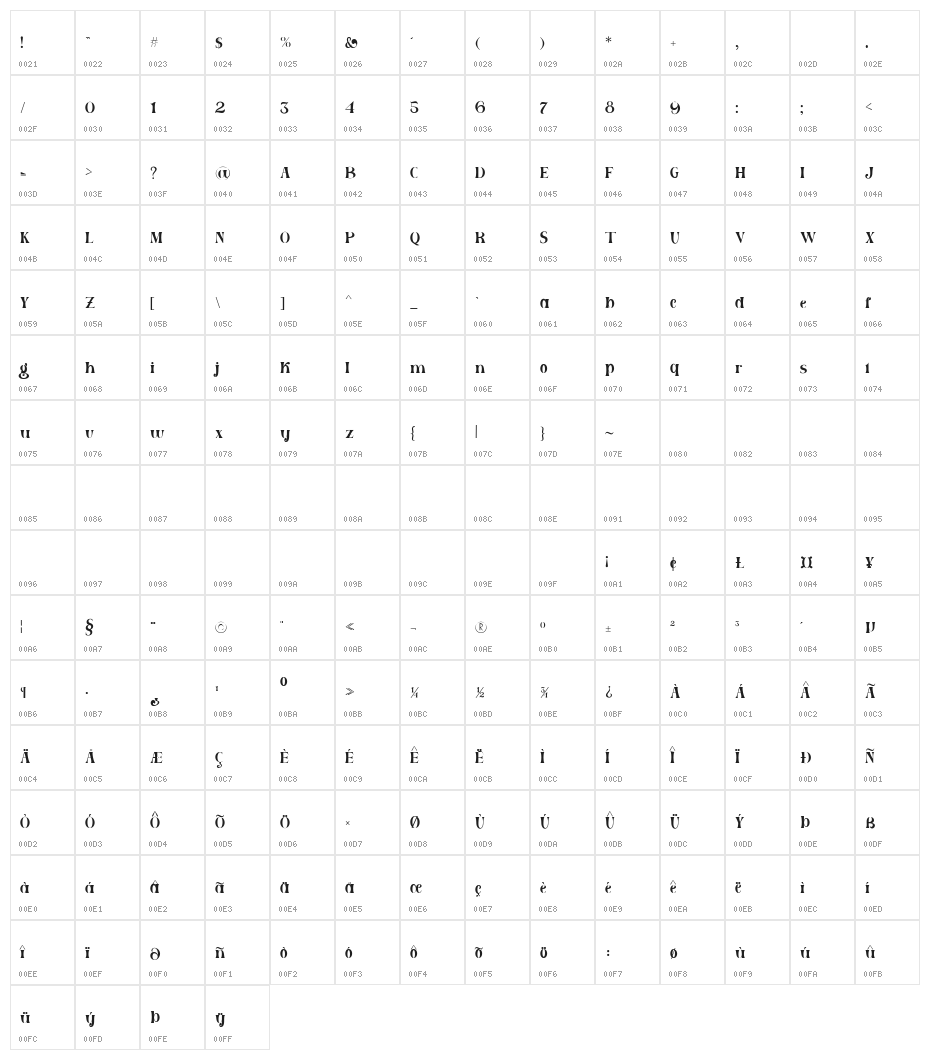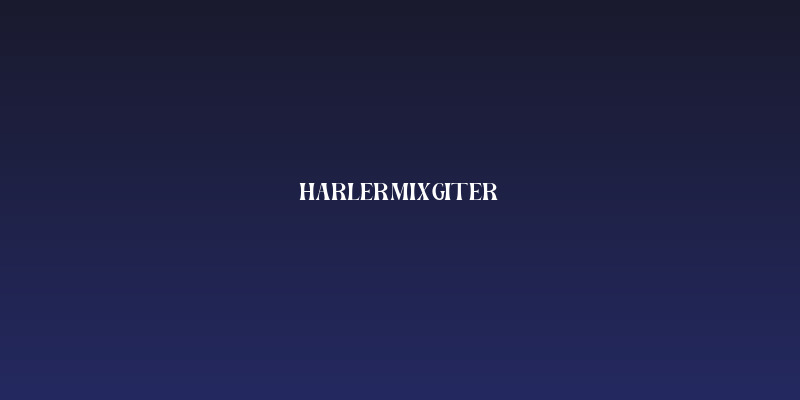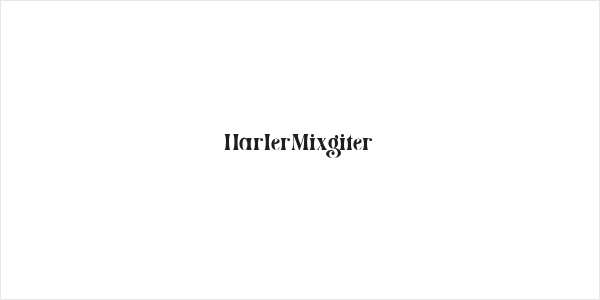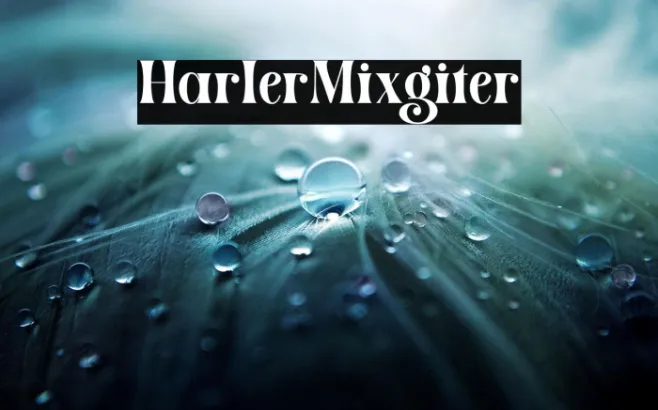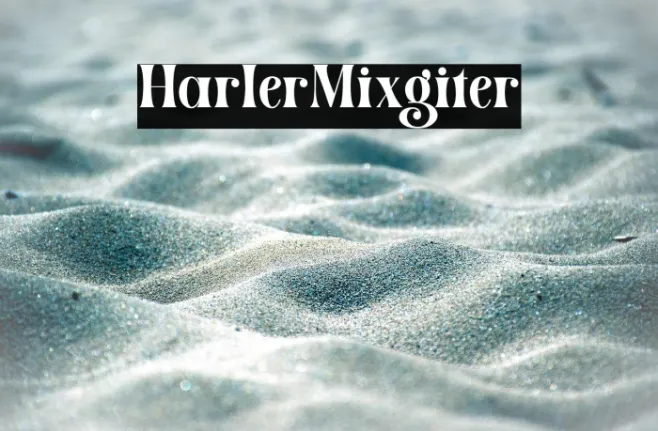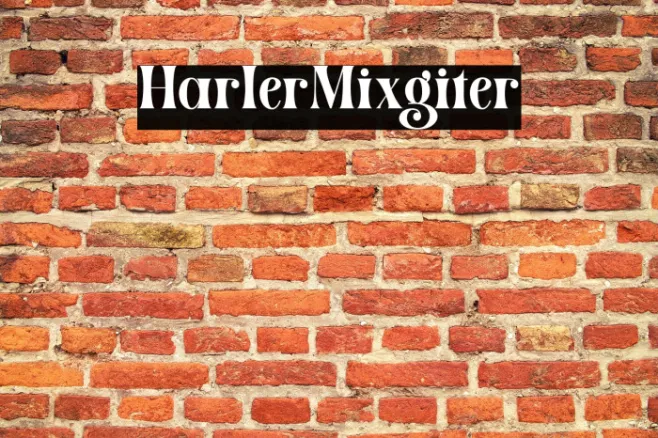
HarlerMixgiter Font
HarlerMixgiter Description
This font exhibits a bold and decorative style, characterized by its unique blend of sharp edges and smooth curves. The uppercase letters have a distinct flair, with some characters featuring exaggerated serifs that add a touch of elegance and drama. The lowercase letters maintain a consistent style, with certain letters like 'g' and 'k' showcasing playful loops and swirls. The numerals are bold and easily readable, complementing the overall aesthetic. Special characters are designed with the same attention to detail, ensuring a cohesive look across all glyphs. This font is ideal for projects that require a striking and artistic touch.